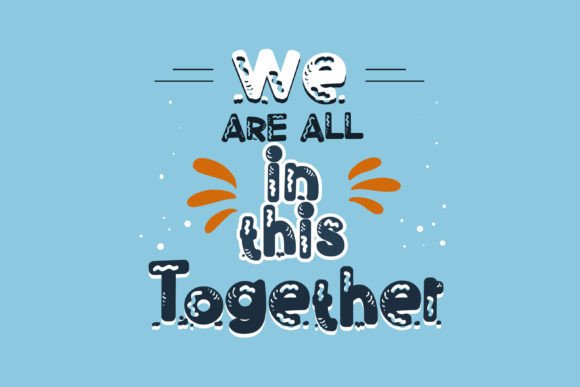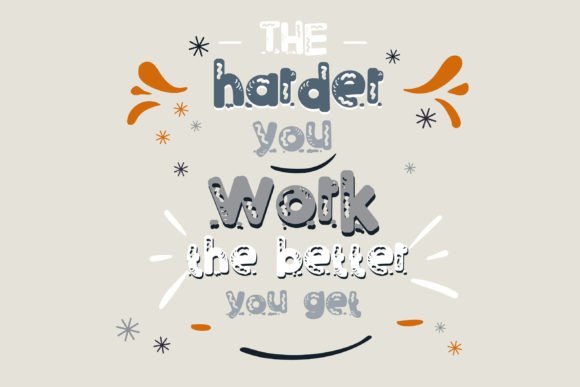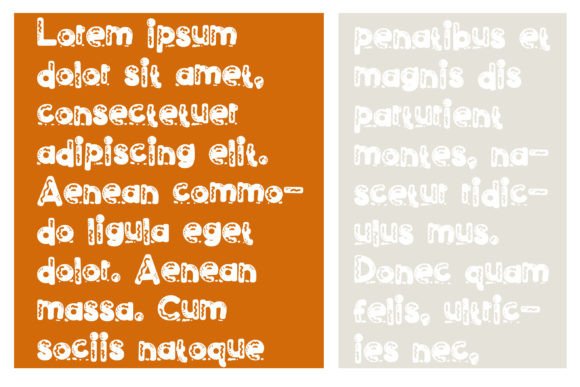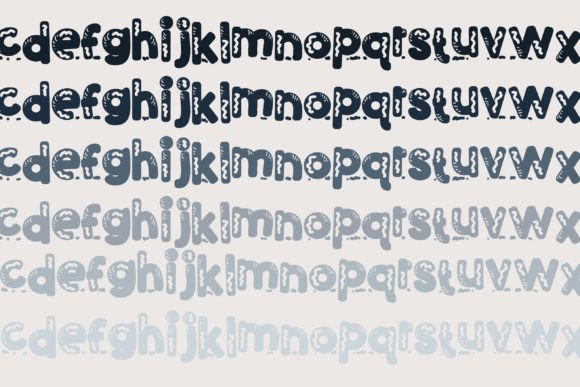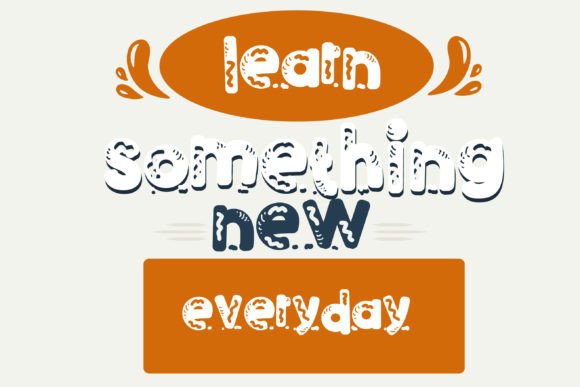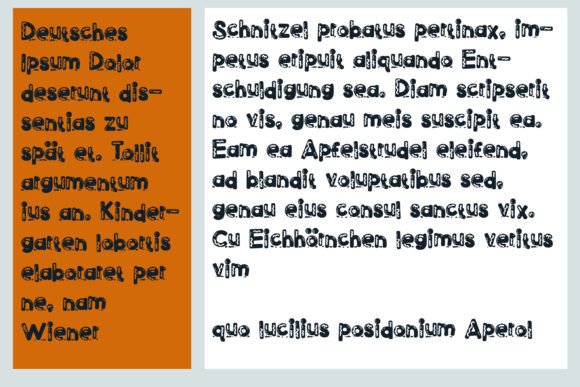
The Joy of Gluey: A Whimsical Hand-Written Print Font
Have you ever been in the middle of a design project, and suddenly, you’re stuck on finding the perfect font? I recall a recent experience where a client asked for a custom invitation design that was both playful and elegant. As I scrolled through my font library, I stumbled upon Gluey, a charming hand-written print font that instantly caught my attention. Its unique blend of whimsical glue drizzles and drips added a delightful twist to my project, and I knew I had to share it with fellow designers and creative hobbyists.
A Personal Review of Gluey
What I Love About Gluey ✨
- ✨ Unique and playful design that adds a touch of creative fun to any project
- ✅ Easy to read and understand, even in smaller font sizes
- 💫 Works well for a variety of design projects, from invitations to crafts and digital designs
- 🎨 Encourages creativity and experimentation with its OpenType features and glyphs
While Gluey is an amazing font, it’s not without its quirks. For instance:
- ⚠️ Some of the glyphs and stylistic alternates can be a bit tricky to navigate, especially for beginners
- 🤔 The font’s playful nature might not be suitable for more formal or professional design projects
The Designer Inspiration Behind Gluey
Gluey’s unique design was inspired by the creative process of sticking words together – literally! The font’s designer wanted to create a font that would add a touch of whimsy and playfulness to any design project. By incorporating glue drizzles and drips into the font’s design, they created a truly one-of-a-kind font that’s sure to stick in everyone’s minds.
Q: What type of projects is Gluey best suited for?
A: Gluey is perfect for creative projects that require a playful touch, such as invitations, crafts, and digital designs.
Q: Is Gluey easy to read?
A: Yes, Gluey is designed to be easy to read and understand, even in smaller font sizes.